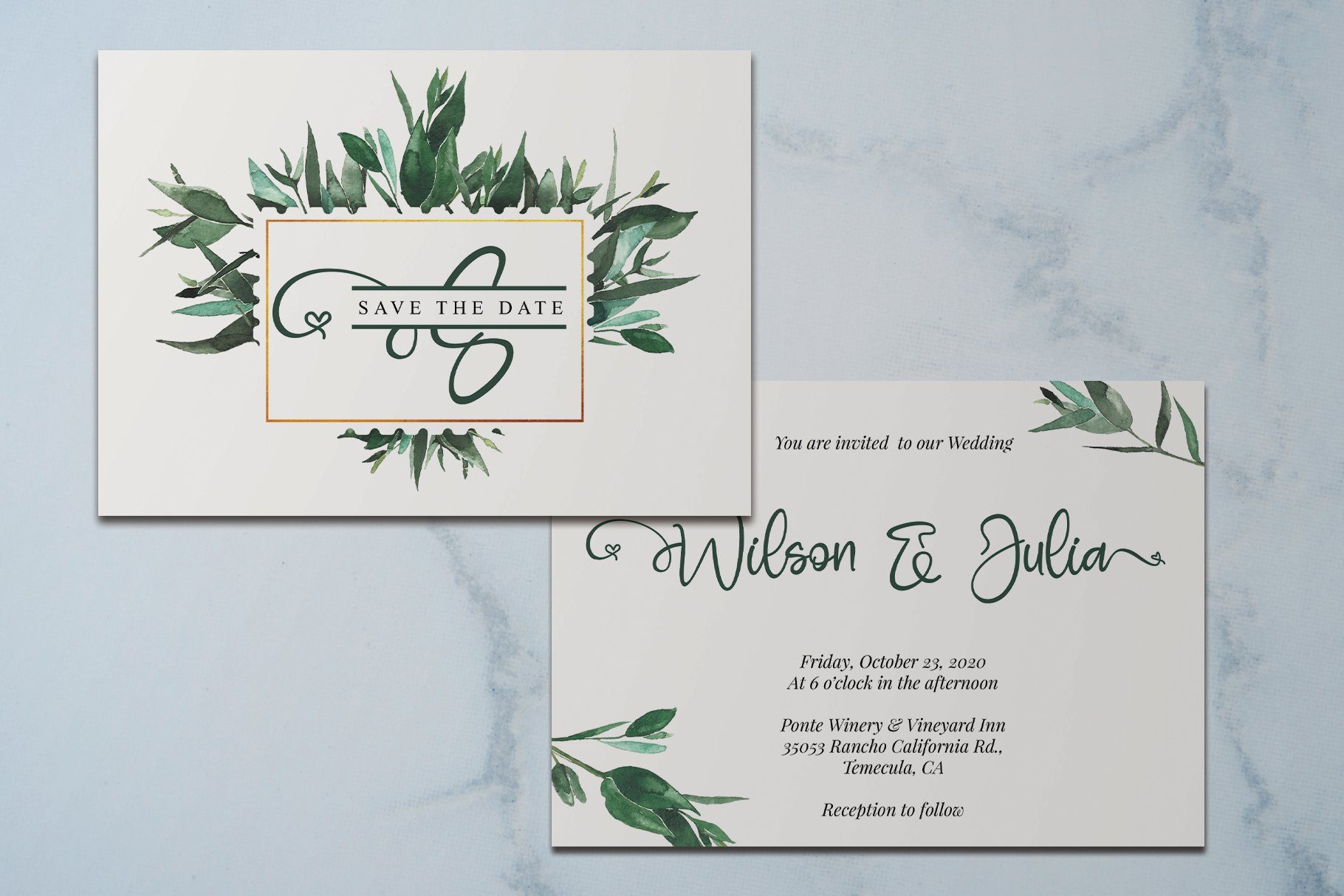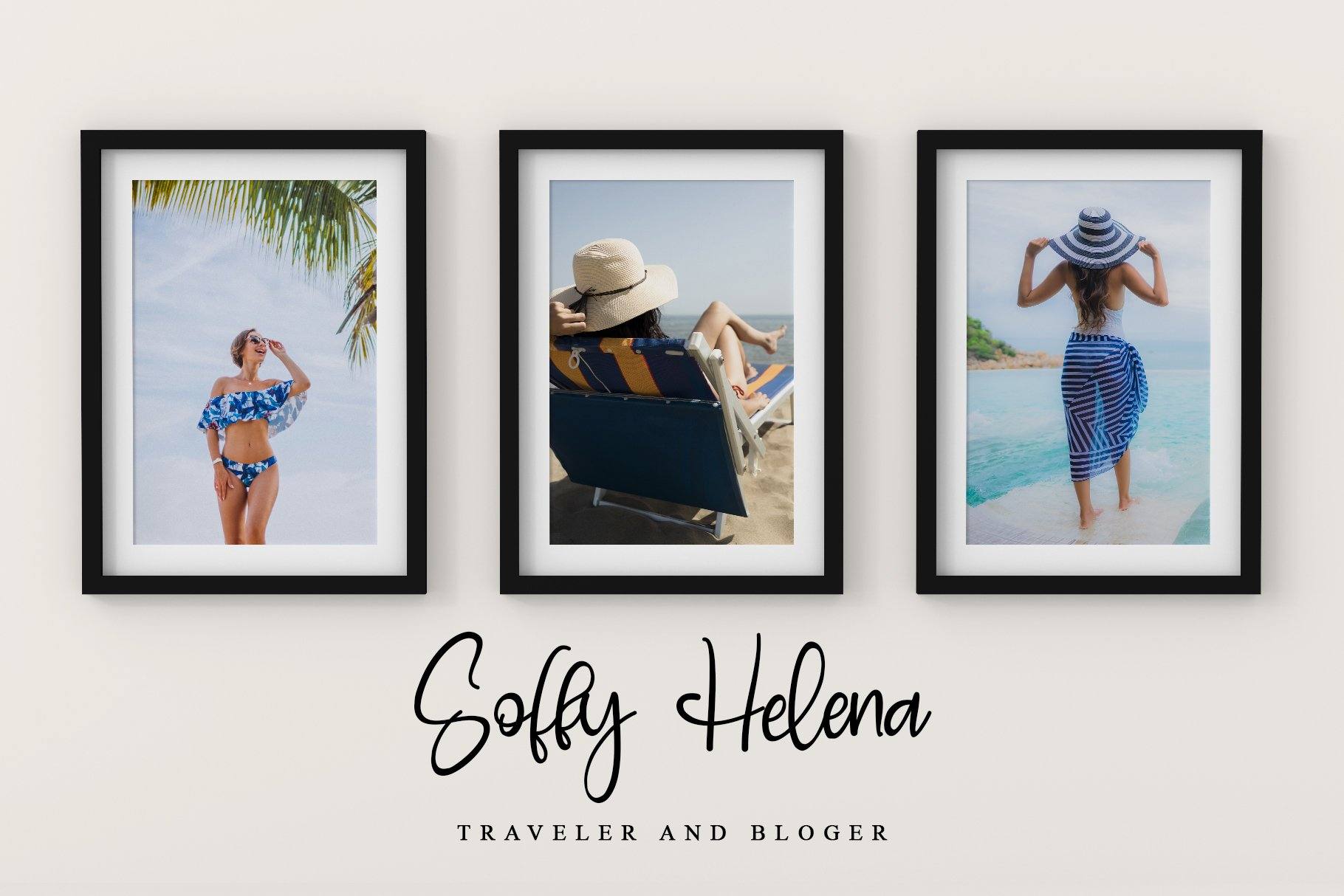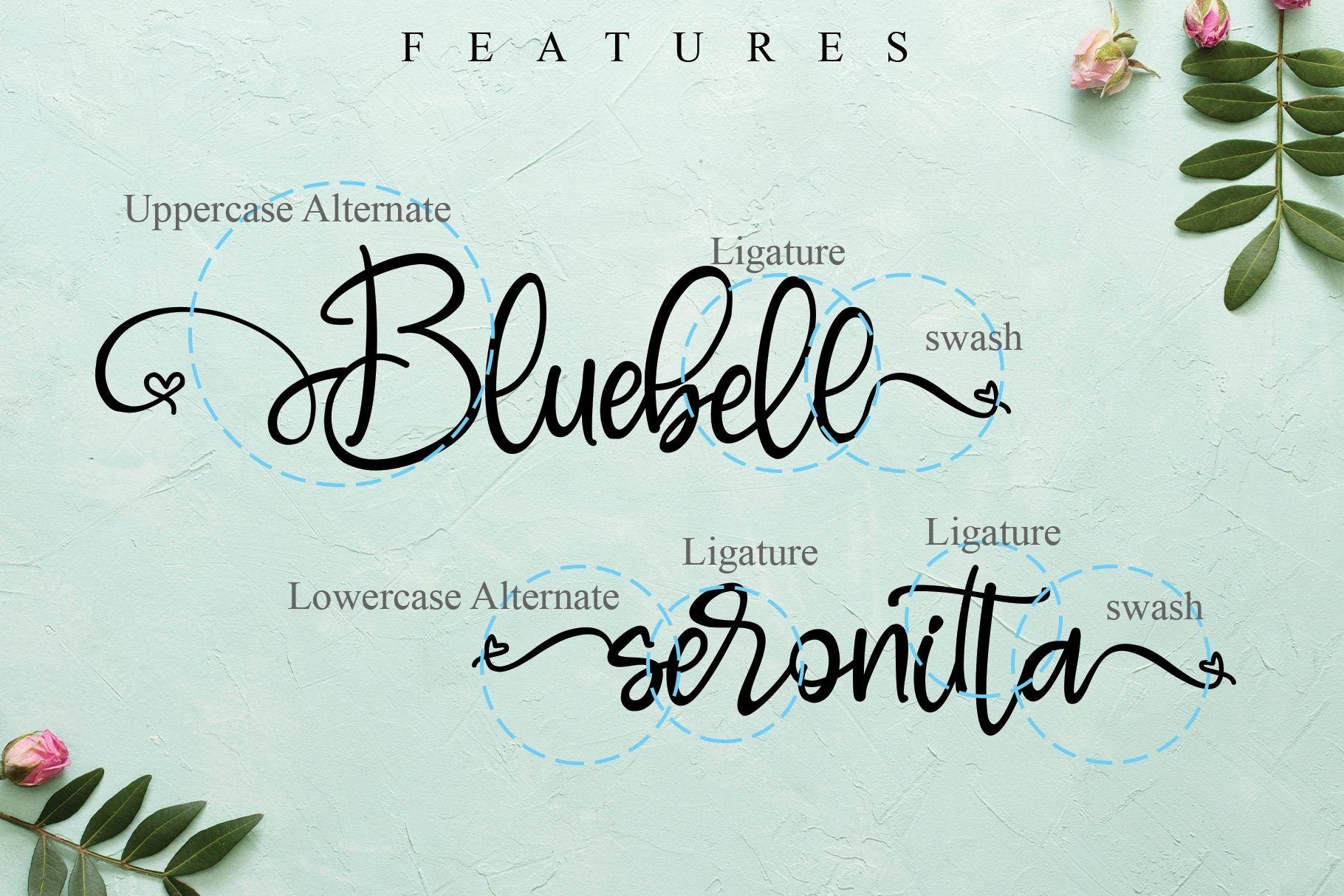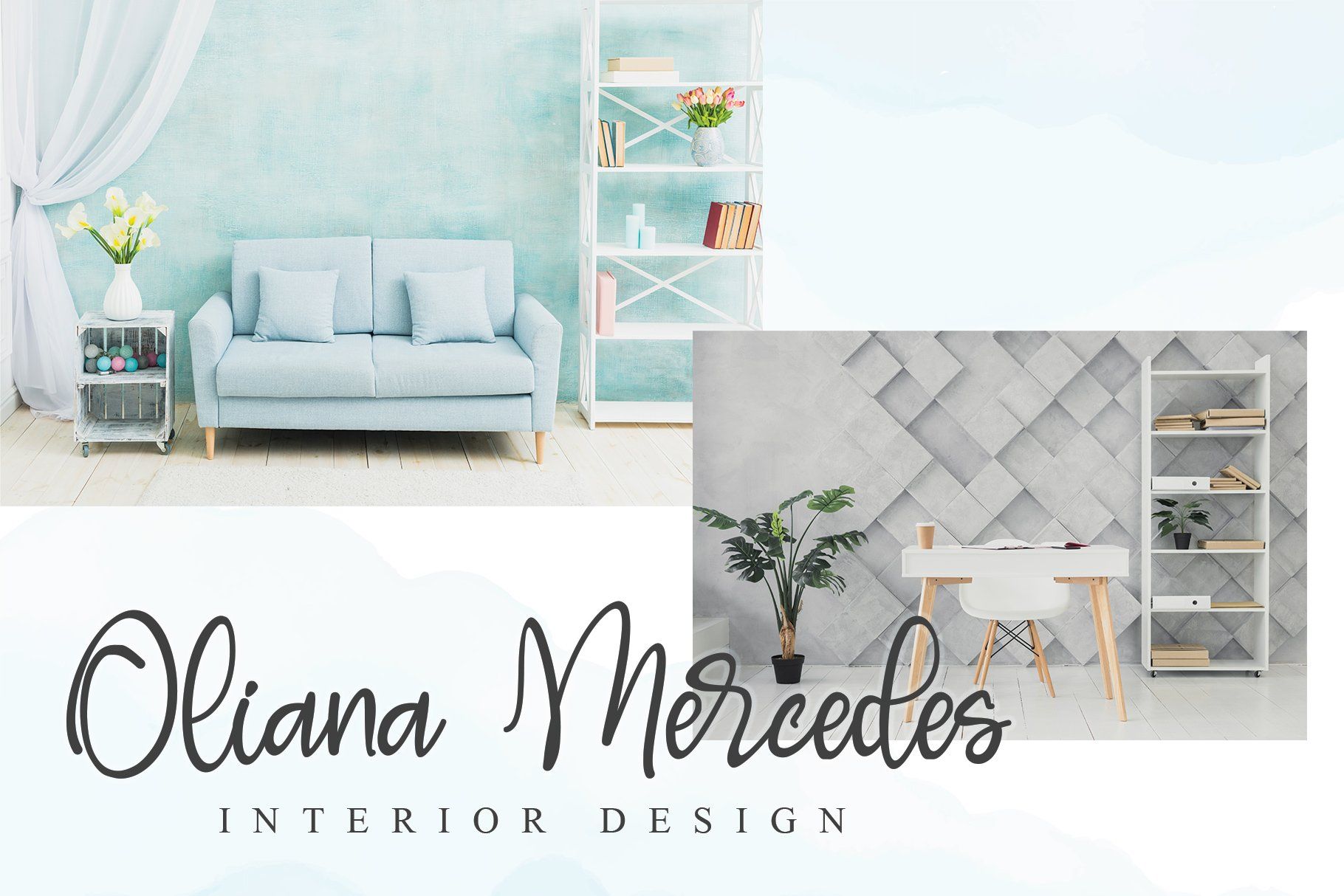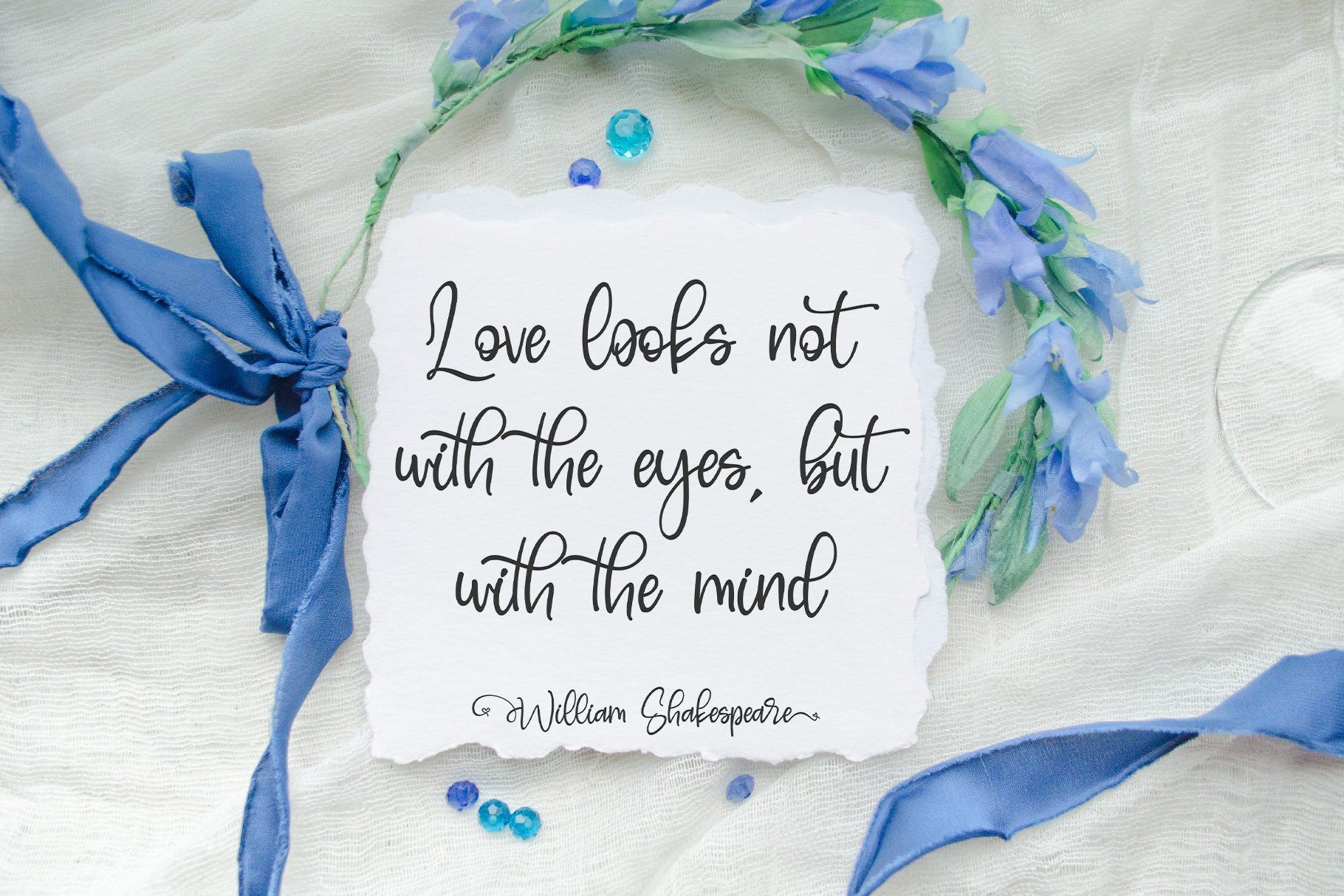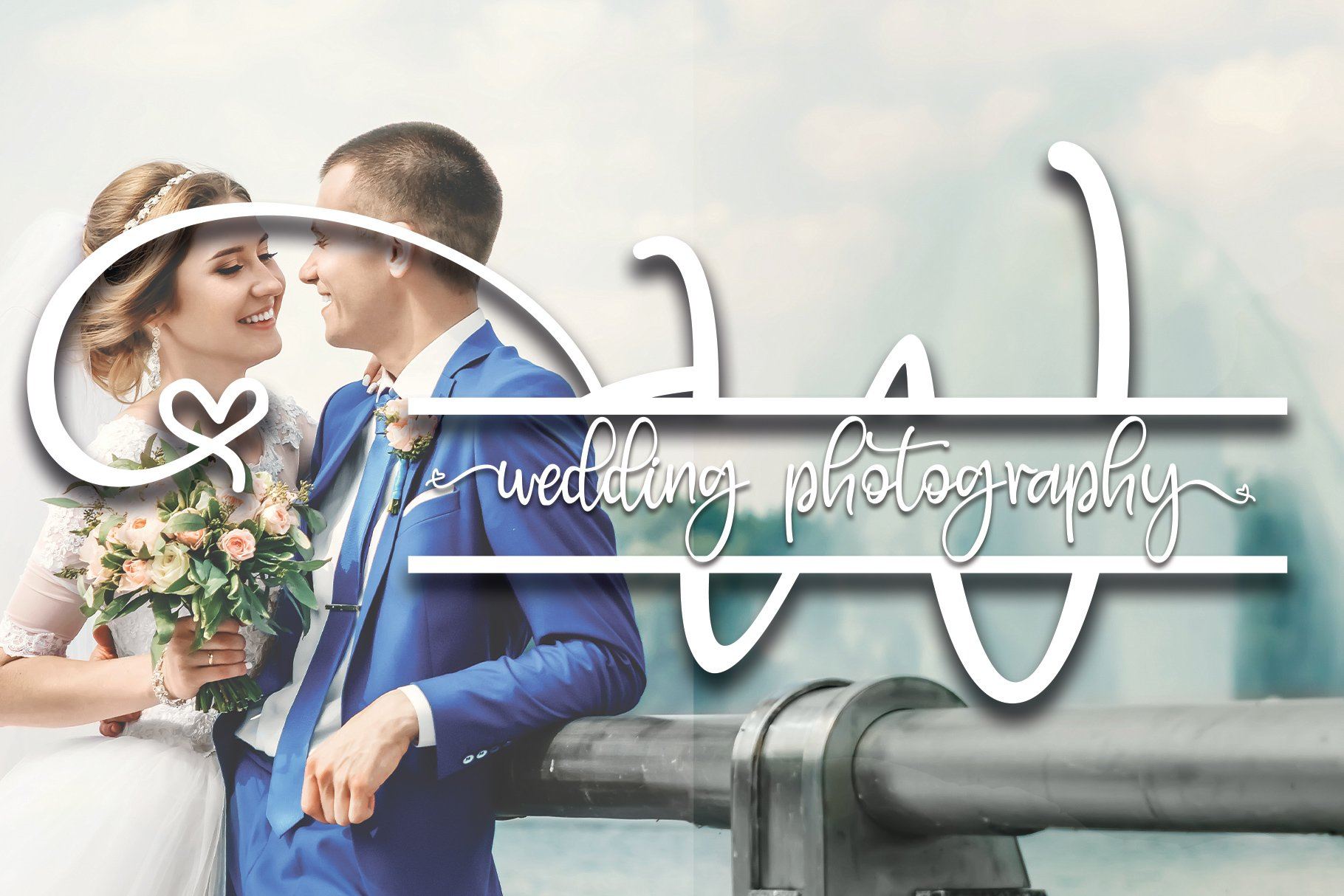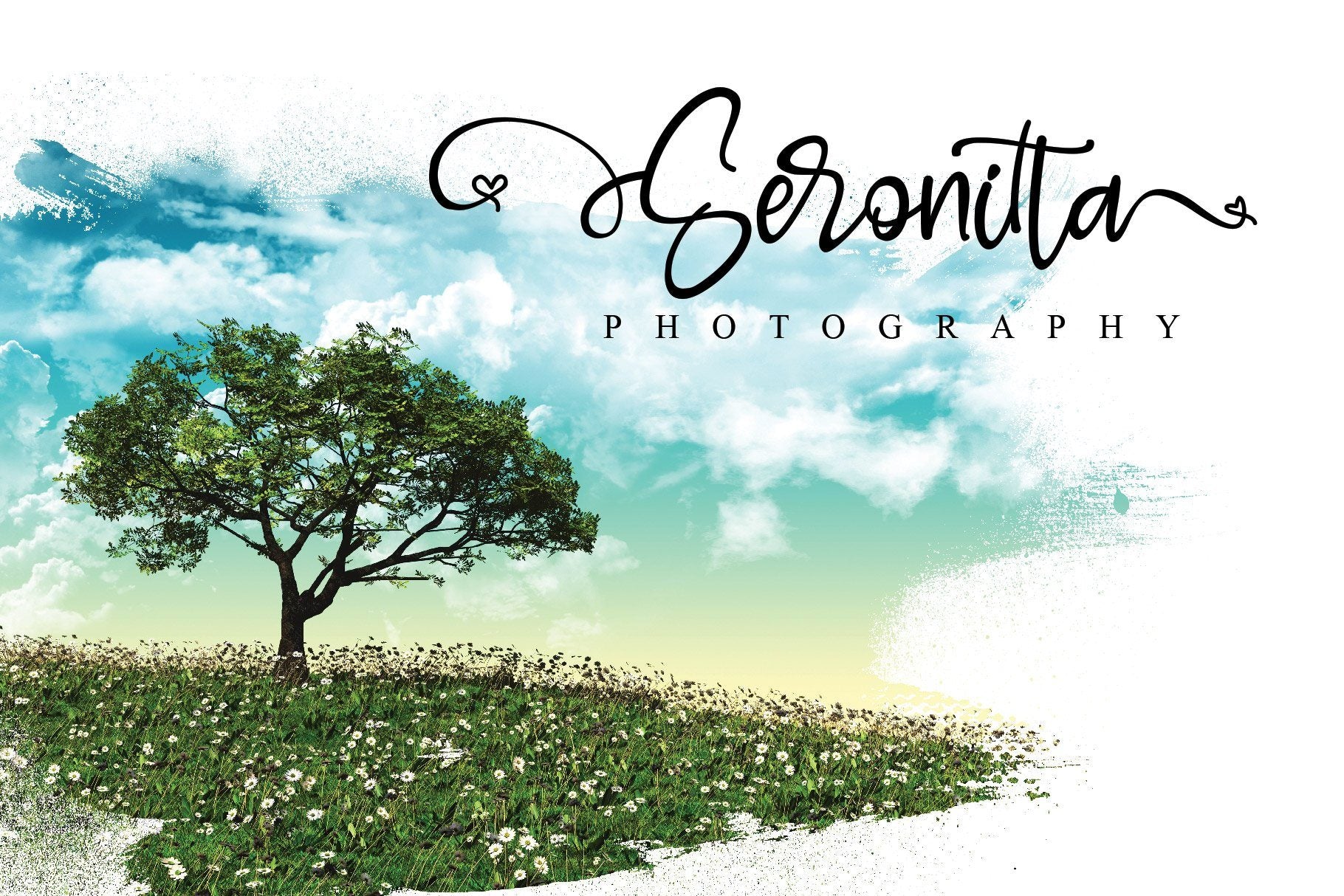
Bluebell
About Bluebell
Bluebell is a sweet, soft hand-lettered font and monogram. Fall in love with its authentic feel and use it to create gorgeous wedding invitations, beautiful stationary art, eye-catching social media posts, Logo, Brand, and cute greeting cards. This display font is the perfect choice for making original and outstanding designs. What’s Included : Bluebell  (TTF, OTF, WOFF) Bluebell Monogram (TTF, OTF, WOFF) Works both on Mac & PC Simple installations Support silhouette Many features: (A-Z, a-z) Alternate, (a-z)  Swash, & Ligature Accessible in the Adobe Illustrator, Adobe Photoshop, Adobe InDesign, CorelDraw, even work on Microsoft Word. Support multilingual; ä ö ü Ä Ö Ü ß ¿ ¡ To access the alternate glyphs, you need a program that supports OpenType features such as Adobe Illustrator CS, Adobe Photoshop CC, Adobe Indesign, and CorelDraw. More information about how to access alternate glyphs, check out this link  ( http://goo.gl/ZT7PqK ) This font is PUA encoded which means you can access all of the playful glyphs and swashes with ease! It also features a wealth of special features including alternate glyphs and ligatures. To stay up to date for my latest job, follow me and let’s be friends because there will be many promos. Our other products: BESTSELLER MILEADILA BEAUTIFUL KISSES ANGELIN GAMOS HERTINA JENNIE ANTIKA AURORA BLACK PINK SIGNATURE California Street BESTOWENS FAMILY